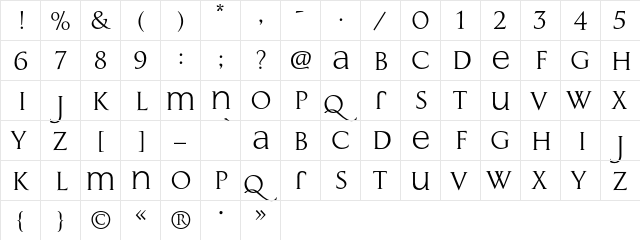
AshleyCapitaliSofia Regular
Design Context for AshleyCapitaliSofia Typeface
AshleyCapitaliSofia takes a measured approach to typography — its balanced proportions and neutral character make it a reliable workhorse for both digital and print work.